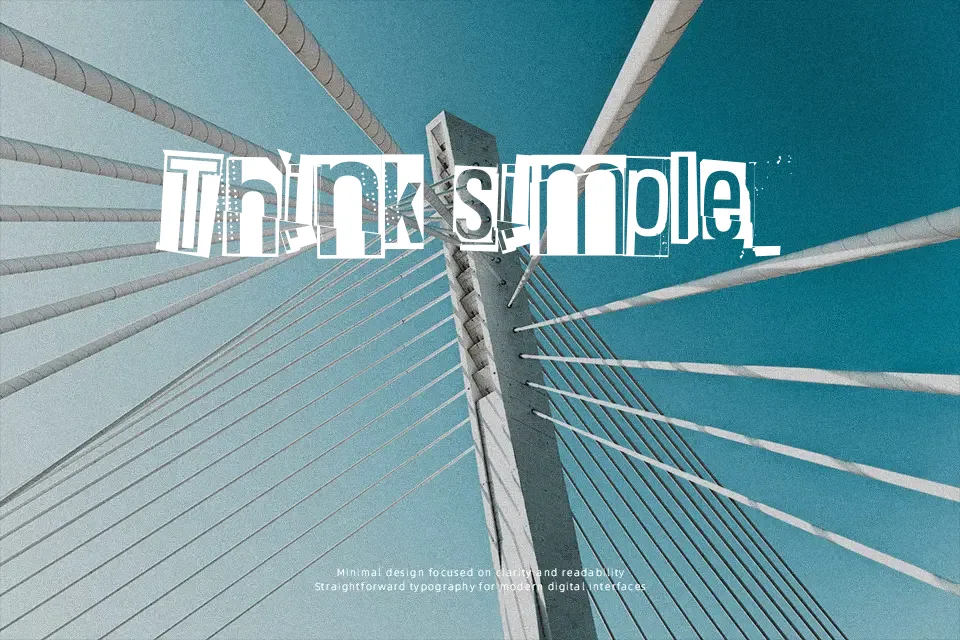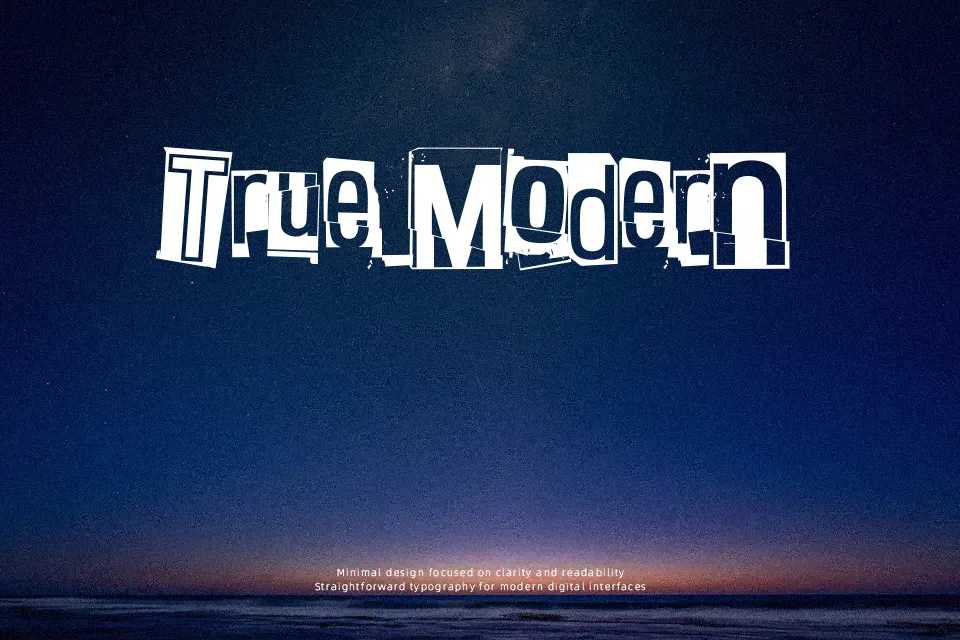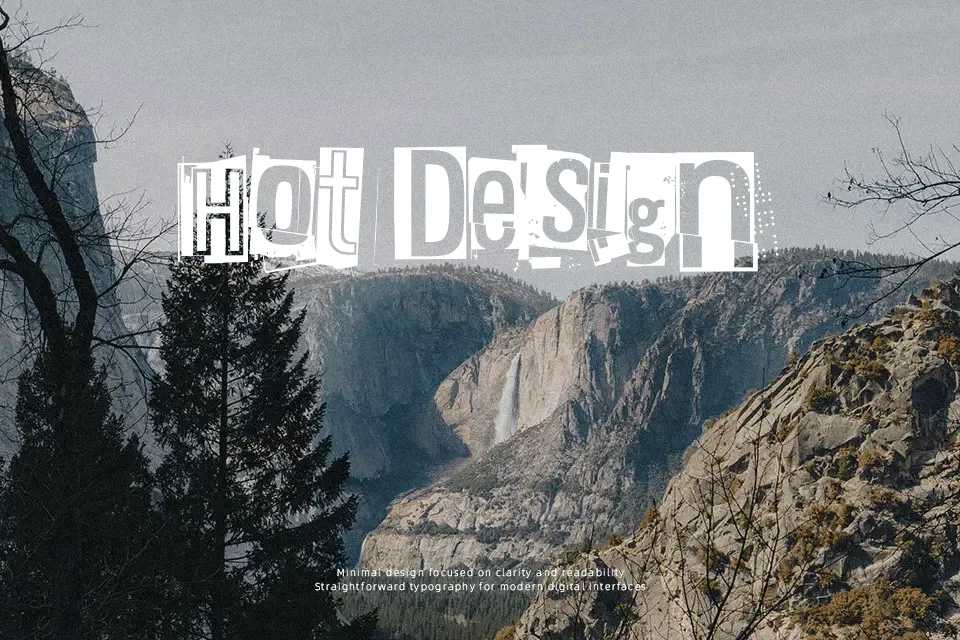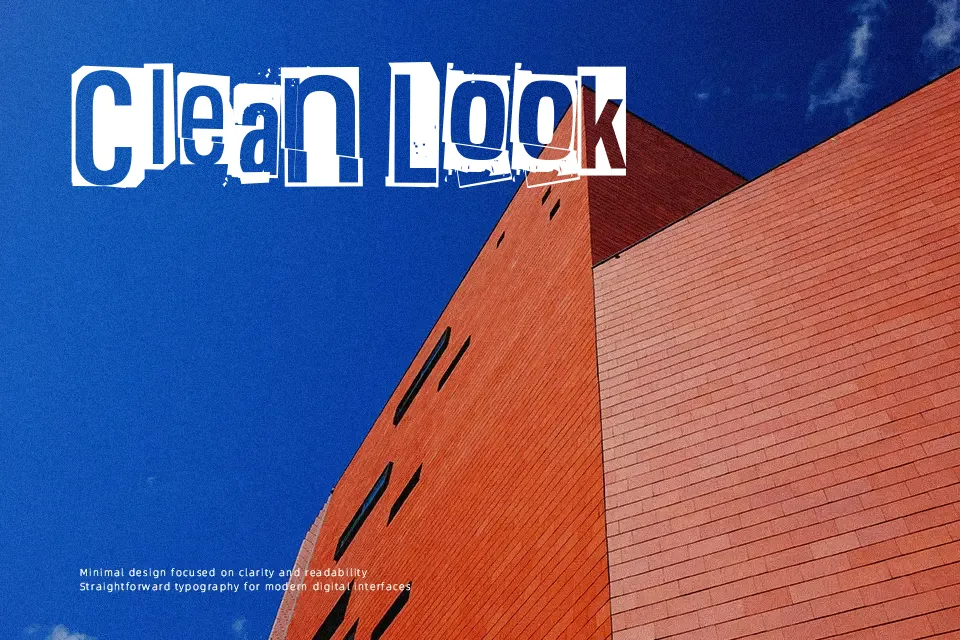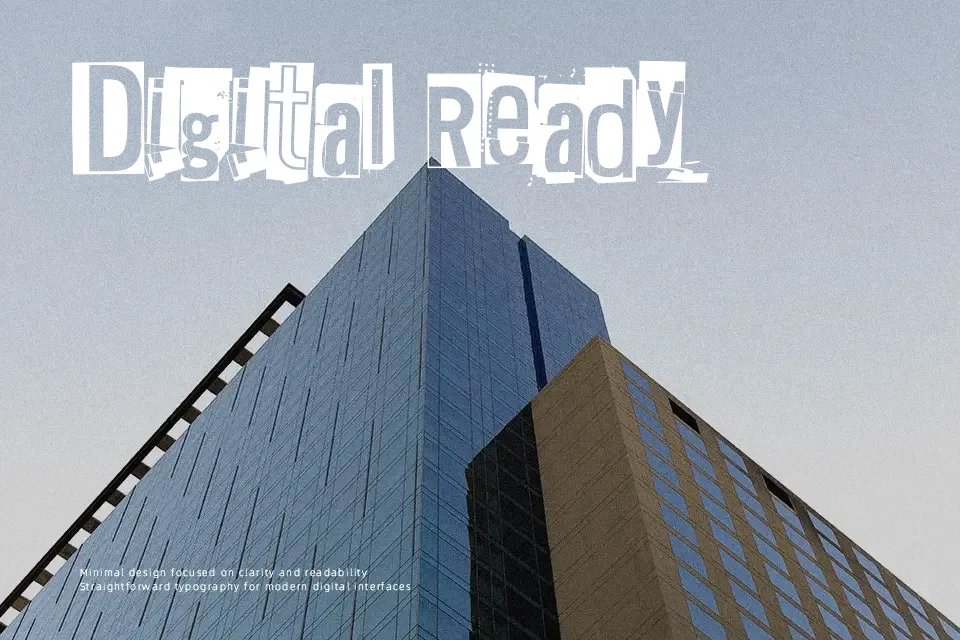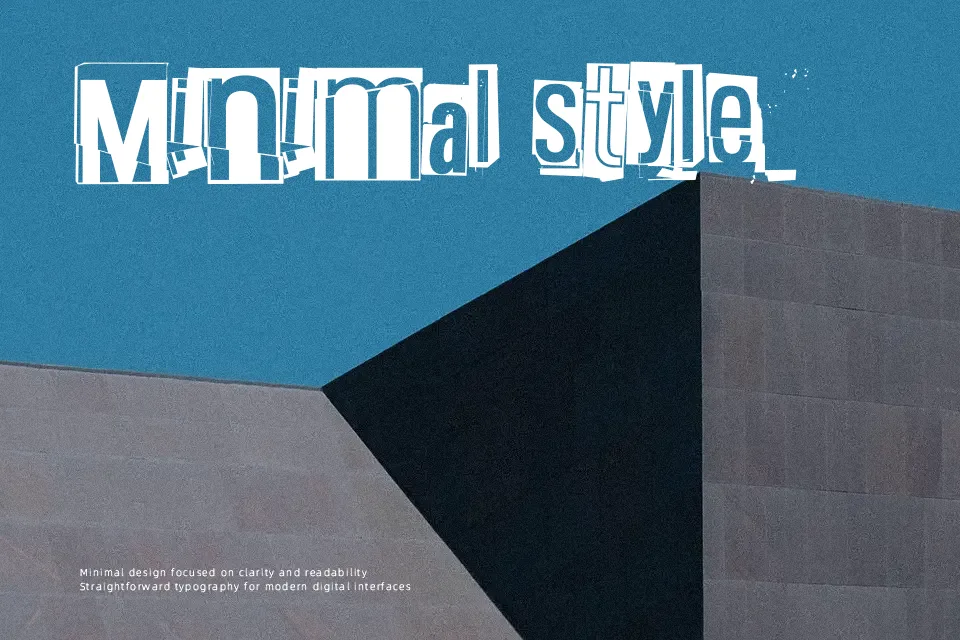
Thin Four Down Three Crazy Pink Font
Designed by Juha Korhonen
Thin Four Down Three Crazy Pink Font features fragmented glyph silhouettes enclosed within jagged rectangular containers, evoking an aggressive cut-and-paste aesthetic. Each character exhibits uneven baseline alignments, raw enclosing stroke boundaries, and tight tracking that produces a dense, rhythmic graphic texture. The heavy exterior shapes deliver outstanding visual punch across underground record sleeves, skate deck art, and oversized event banners. However, the compressed inner counters and intentional structural distortion drastically impair legibility throughout extended editorial copy or small user interface elements. Spacing helps maintain clarity in larger headlines, yet dense forms reduce comfort during extended reading.
Best For: underground music festival posters, punk zine covers, rebellious streetwear graphics
Not Ideal For: continuous body copy, mobile application interfaces, formal corporate documents
Perfect for headline, music, and packaging, with a bold and decorative style.